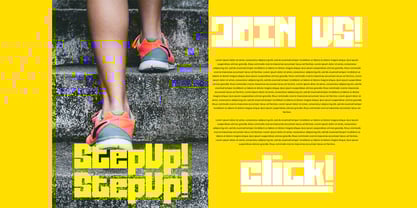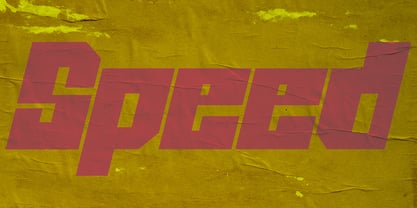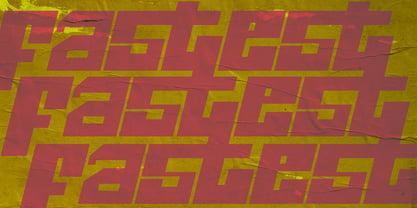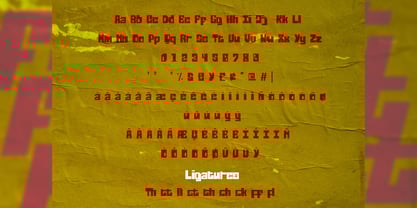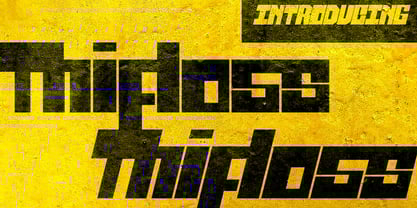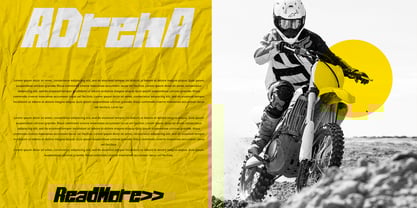
Thifloss
The Thifloss Font Family was designed by Jada Akbal and published by Jadatype. Thifloss contains 2 styles and family package options. More about this family
Thifloss is a display font with a block-bold style. suitable for posters, logotypes, apparel, branding, and so on. contains standard English letters, numbers, punctuation, Ligatures and several accents that support multilingualism.